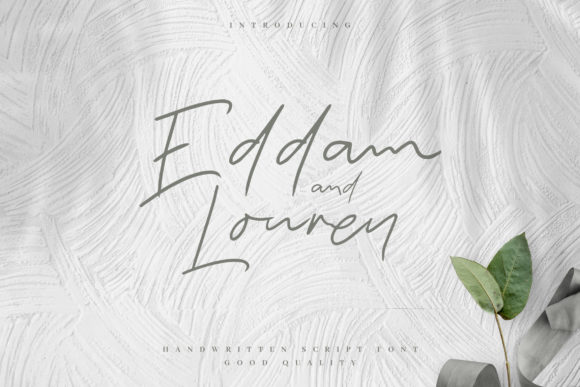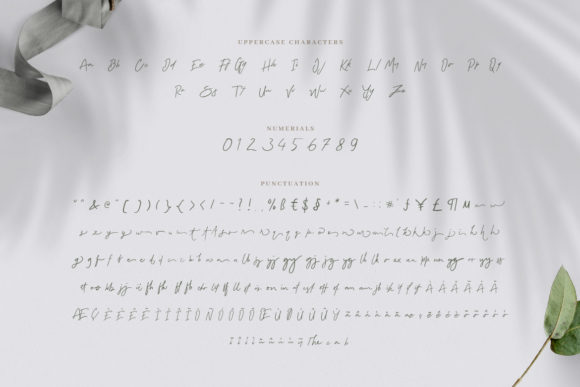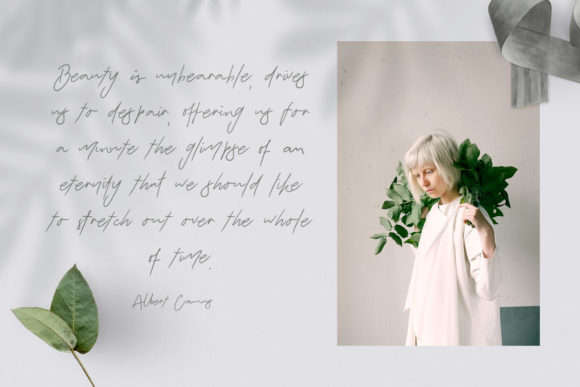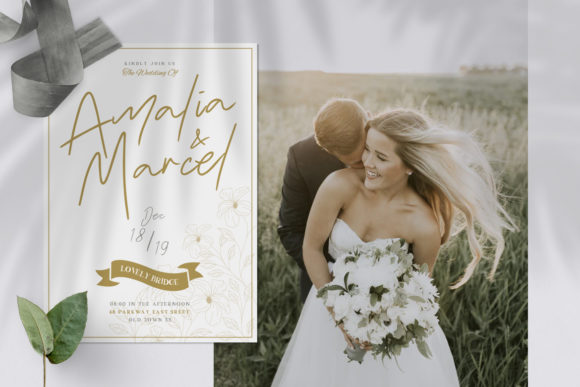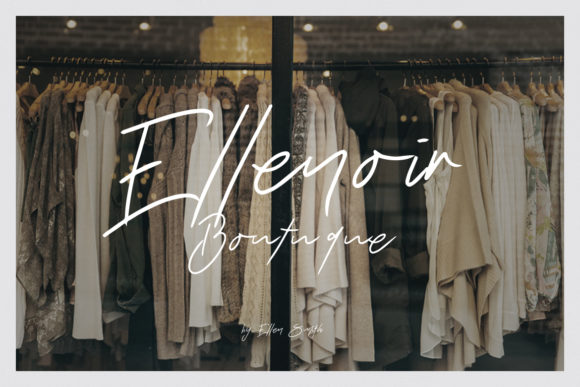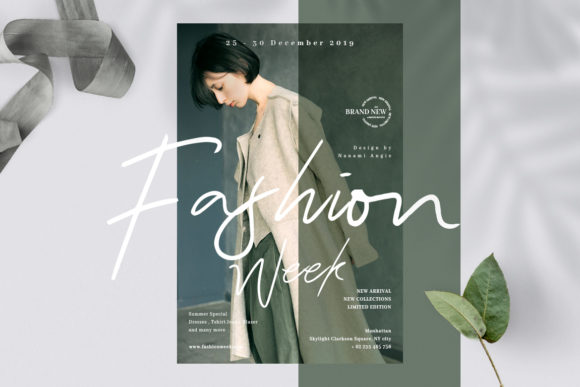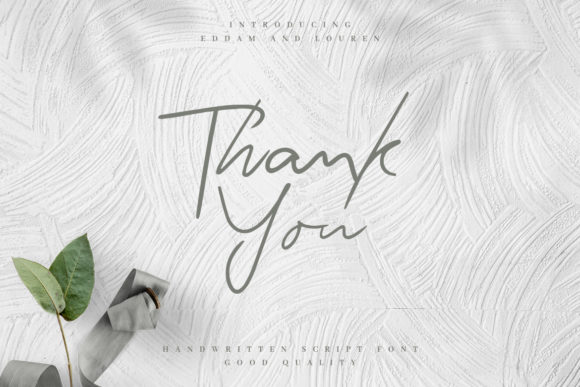
Eddam and Louren Font
About Eddam and Louren Font
Eddam and Louren is a delightfully charming script with an elegant feel. Fall in love with its dazzling style, and take any DIY project to the next level with this must-have.